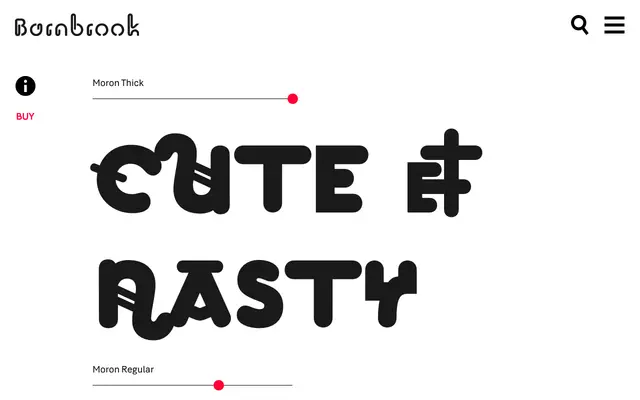
A display typeface pulling from Victorian Tuscan and Grotesque lettering found in Glasgow's churches and cemeteries, fused with 1970s sausage-font sensibility.
Rooted in pre-modernist letterforms from Glasgow's graveyards and ecclesiastical architecture, Moron began as a sans-serif redrawing of Barnbrook's Nylon before evolving into its own distinct character. The design balances the industrial weight of Victorian grotesques with decorative ornamental qualities that predate the clean rationalism of modernism. The result sits somewhere between cute and menacing, old and new, with an idiosyncratic energy that suits display work where generic grotesques fall flat.
Moron is a display typeface rooted in Victorian Tuscan and Grotesque letterforms, blending sans-serif industrial weight with ornamental qualities characteristic of pre-modernist typography. The foundry describes it as a 'cute/nasty, old/new' drawing that defies straightforward grotesque classification.